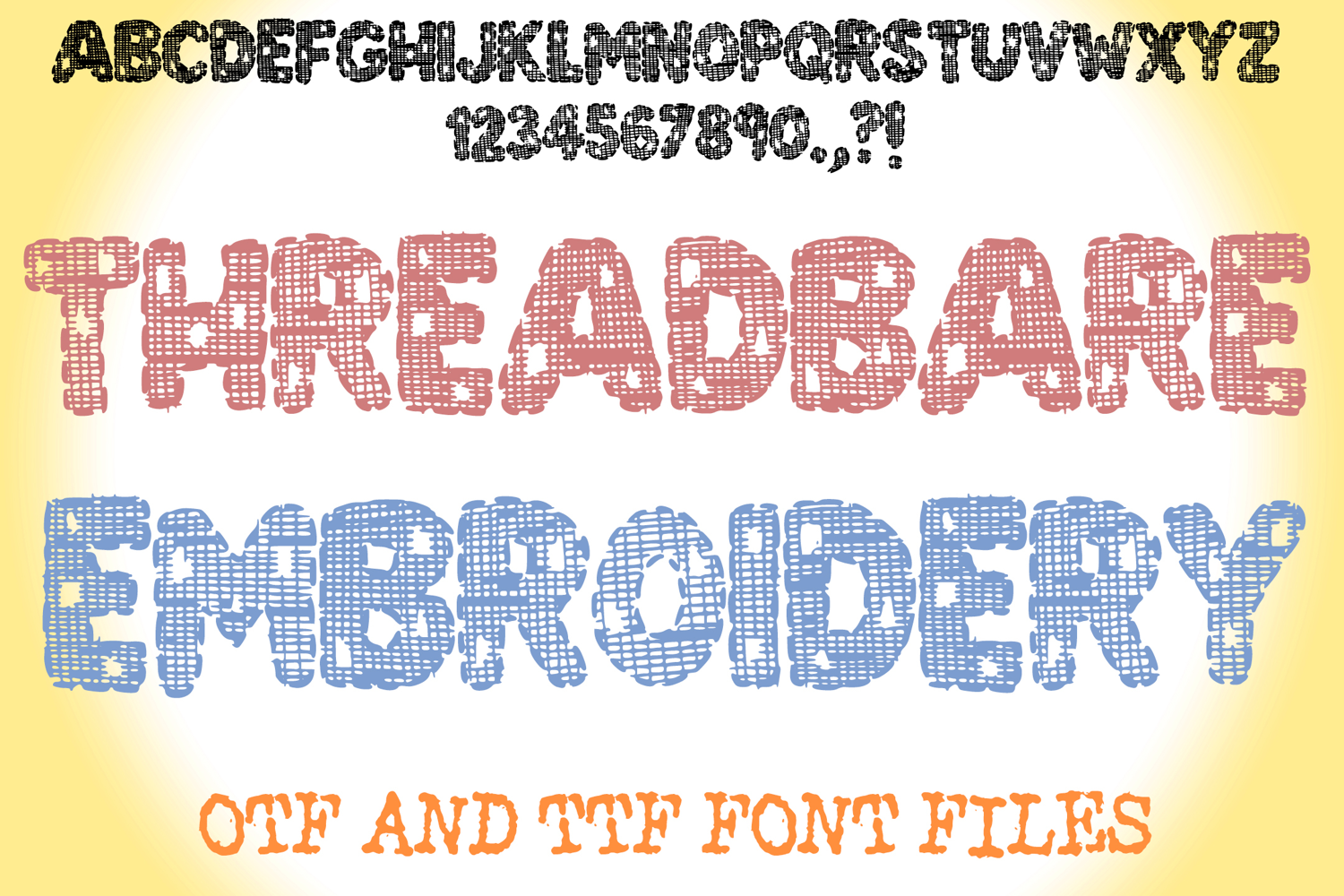
Threadbare Embroidery Worn Fabric Alphabet Lettering ABC
Threadbare Embroidery Fabric Font is a creative display typeface designed to look like hand-stitched fabric with a distressed, thread-worn texture. This unique fabric-inspired font is perfect for adding a crafty, handmade, and textured look to your designs.
Use it for sewing projects, embroidery-themed crafts, t-shirt designs, fabric-inspired logos, DIY projects, scrapbooking, invitations, and home décor prints. Its realistic stitched effect makes it ideal for Cricut and Silhouette cutting machines, sublimation, and digital design projects.